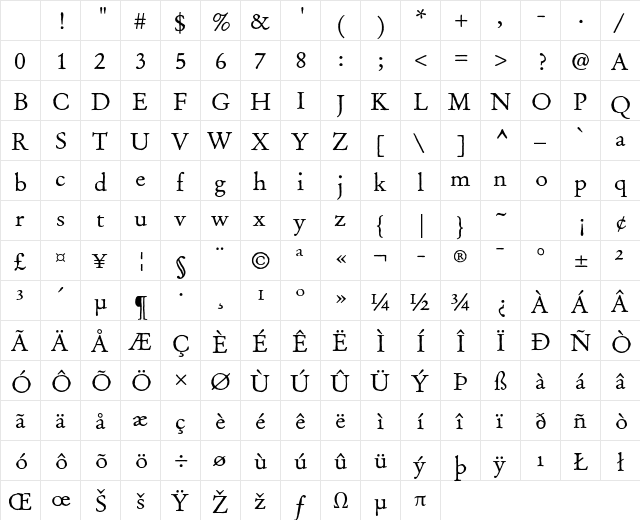
Complete Old Claude LP Std Regular glyph index. Displaying only characters natively supported by Old Claude LP Std Regular font.
Old Claude LP Std is a composed and adaptable typeface that performs quietly and consistently across a wide range of design contexts.